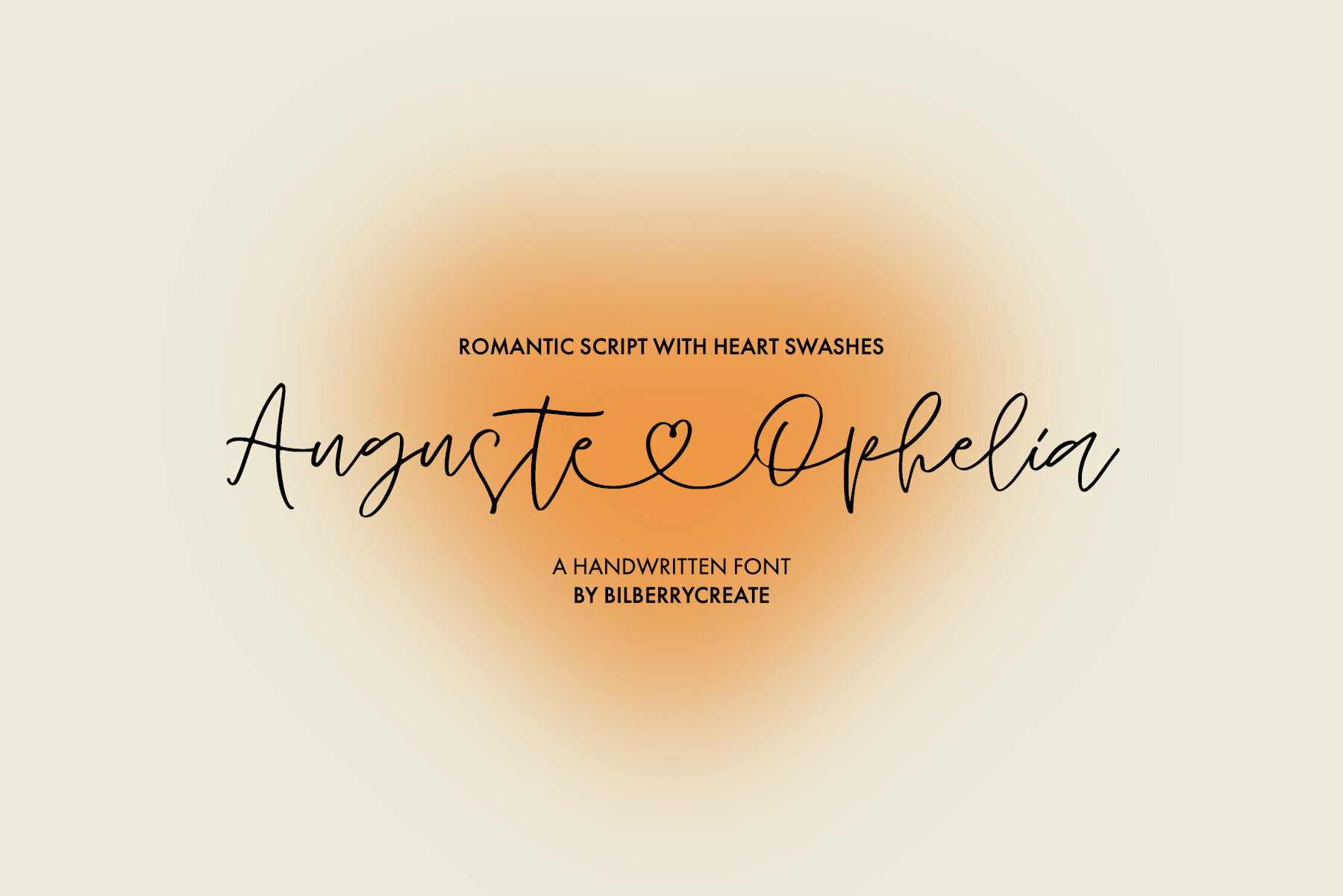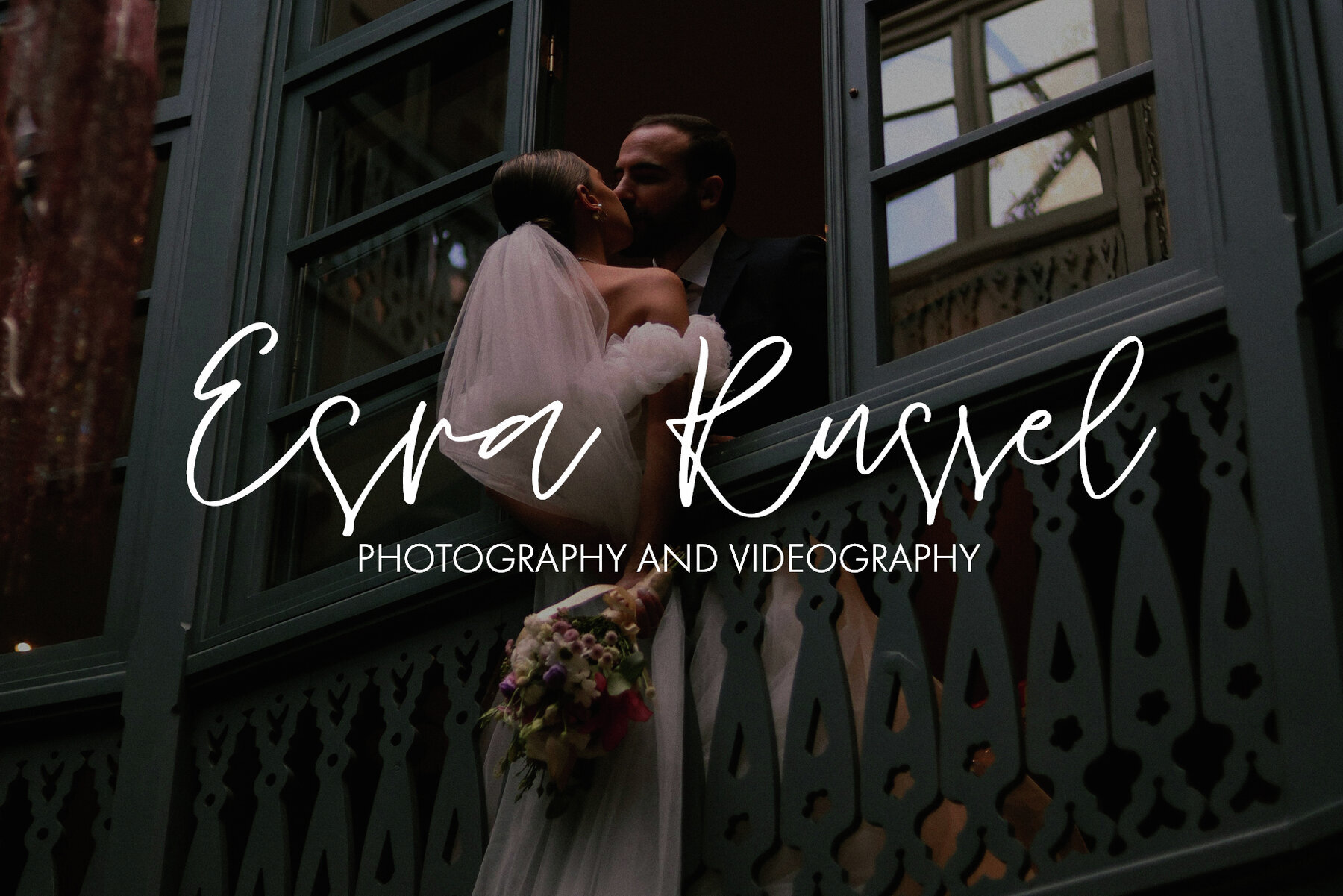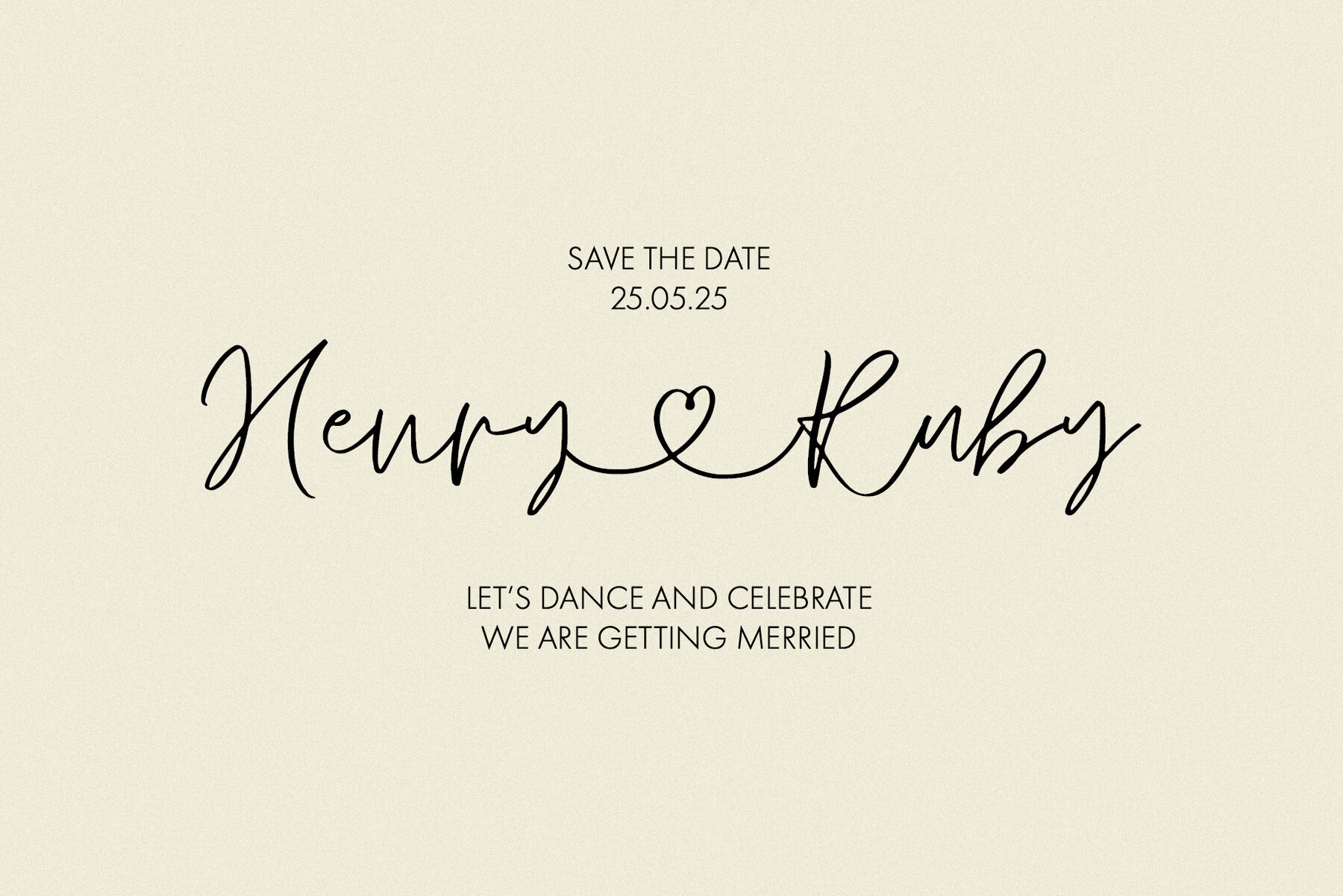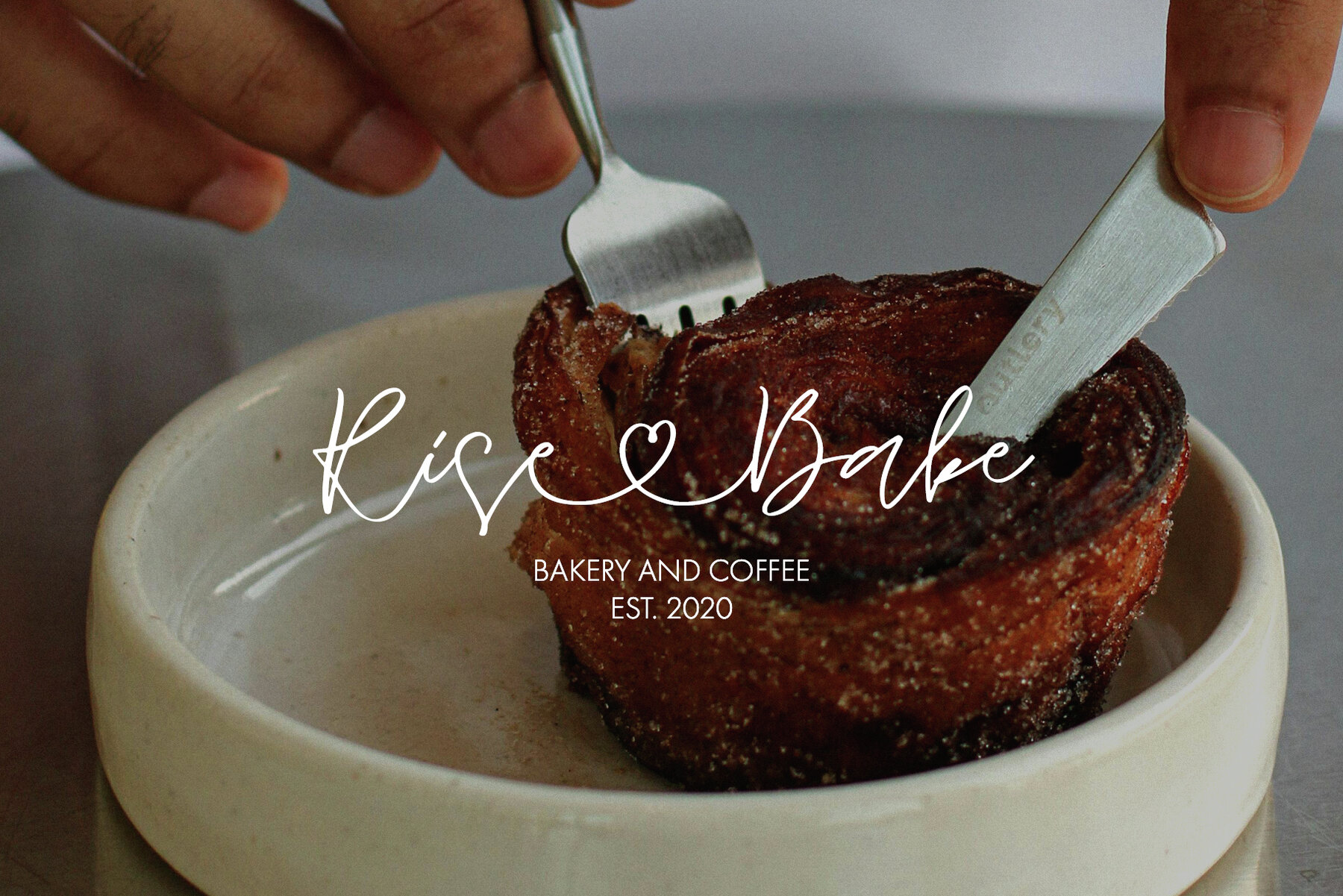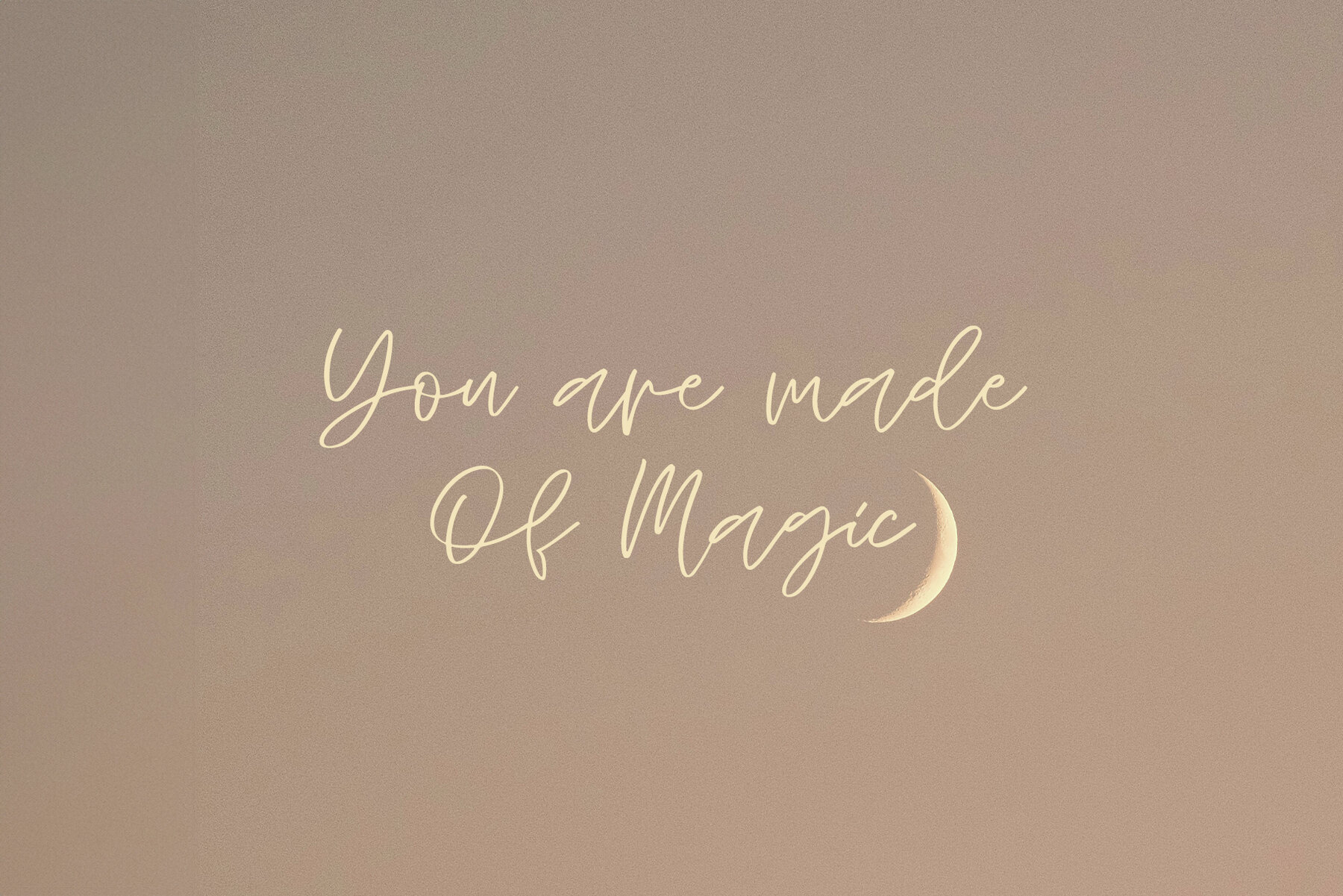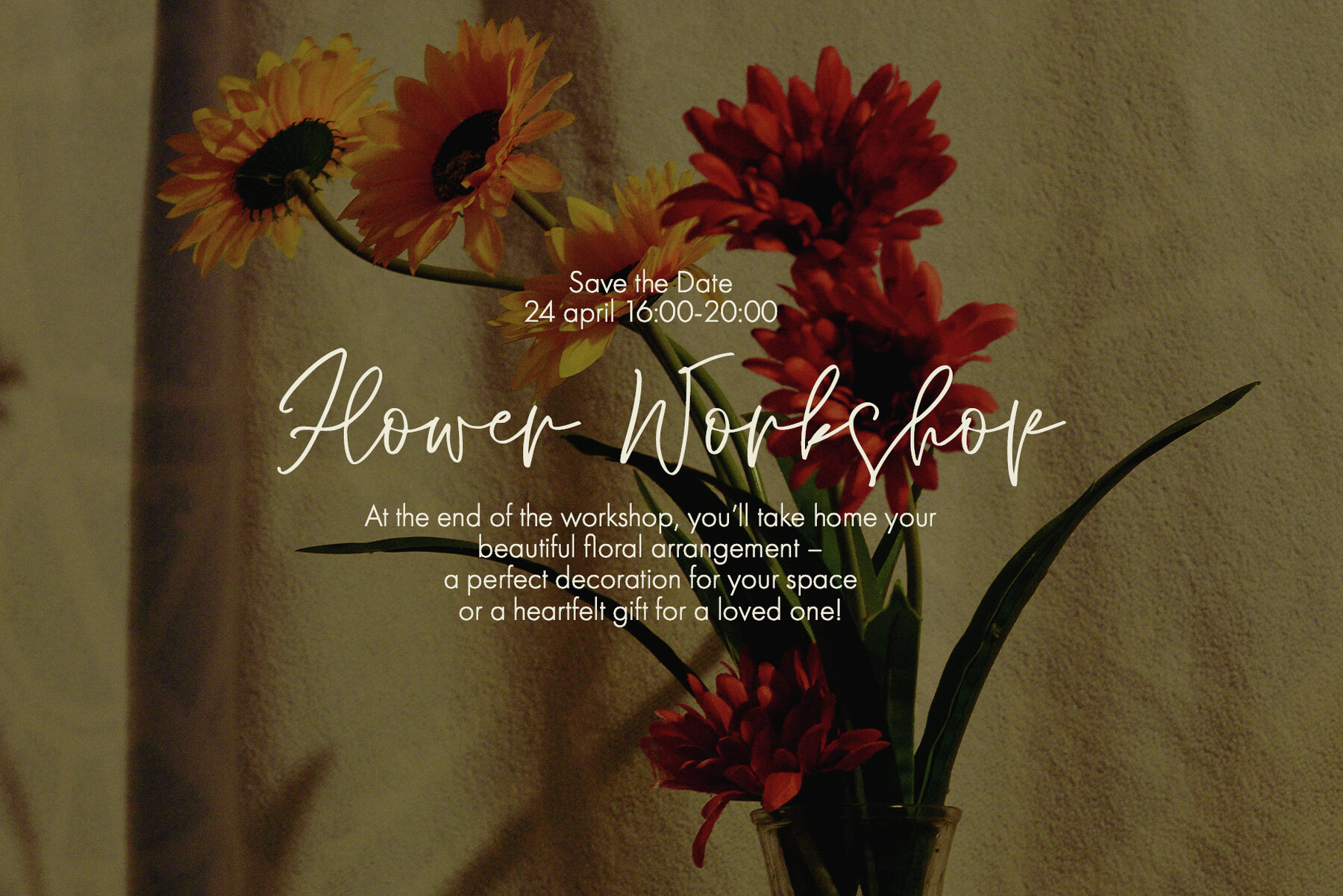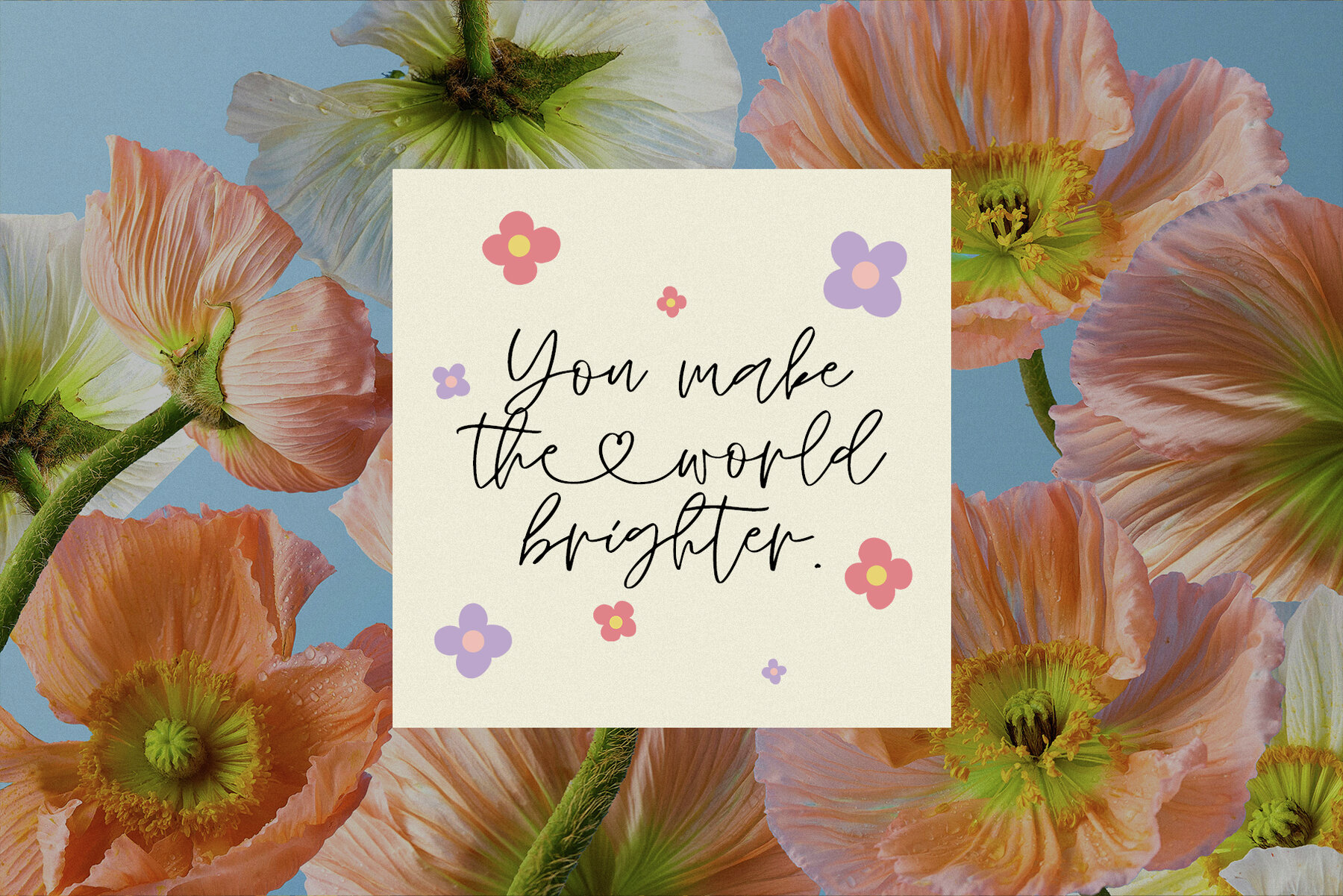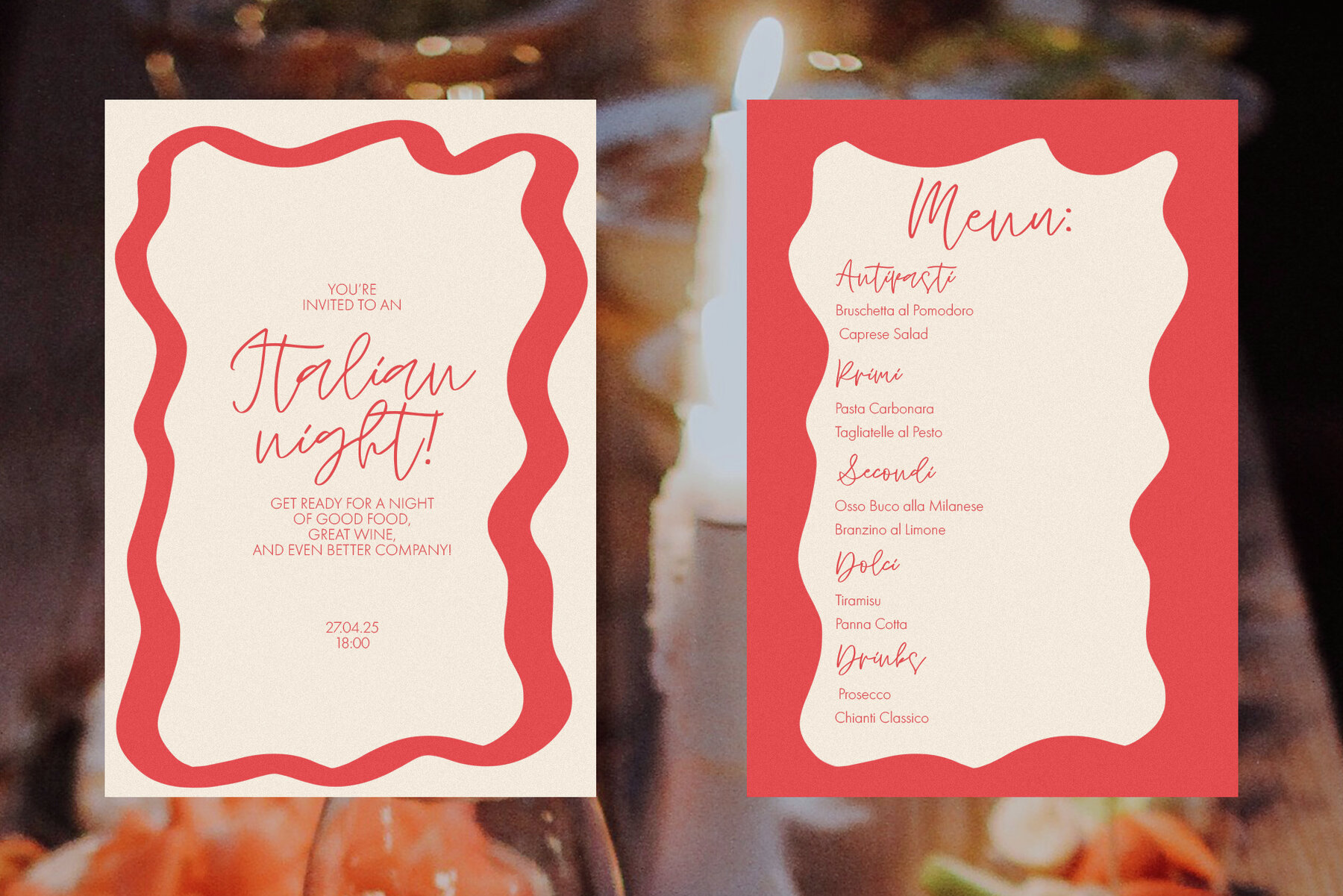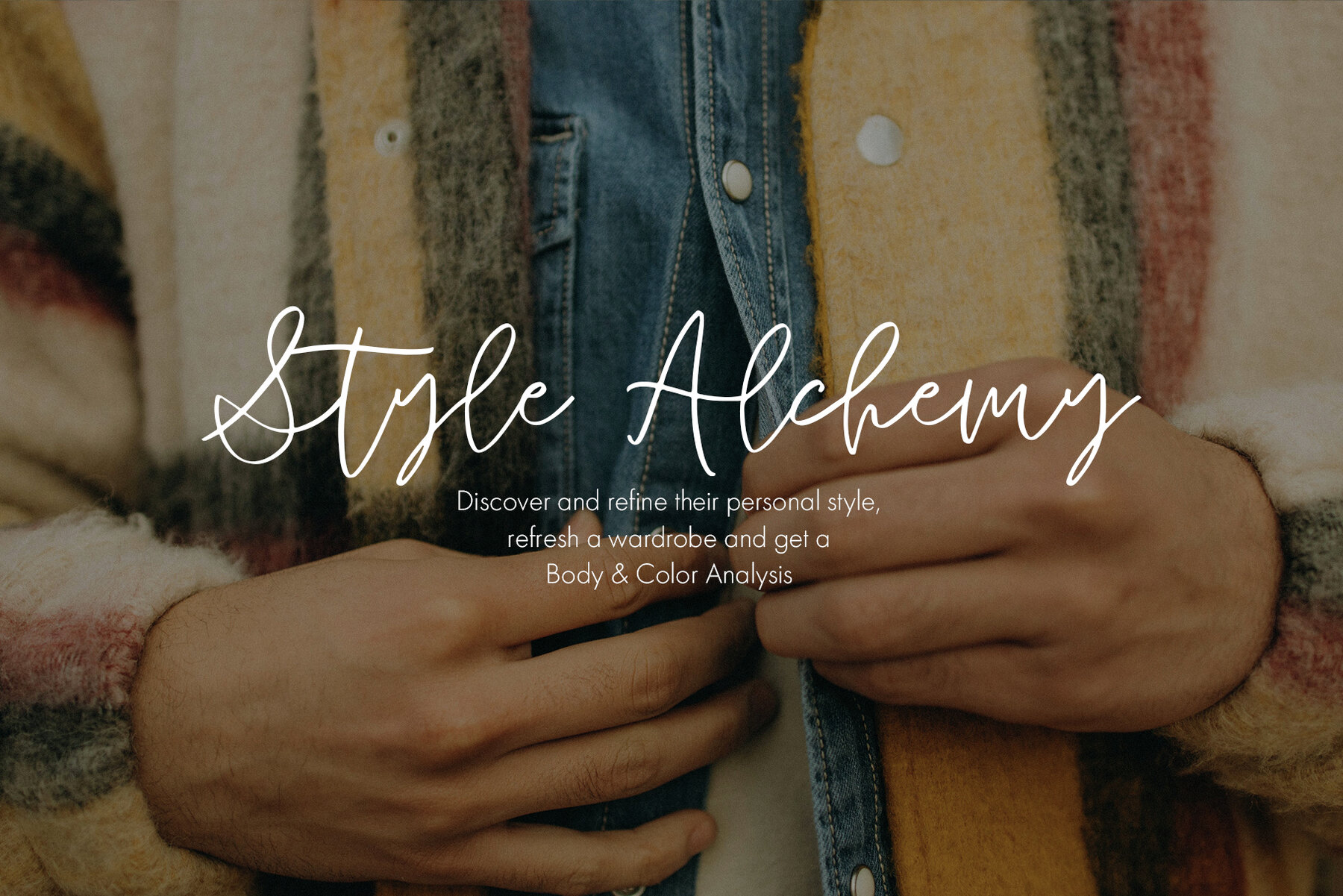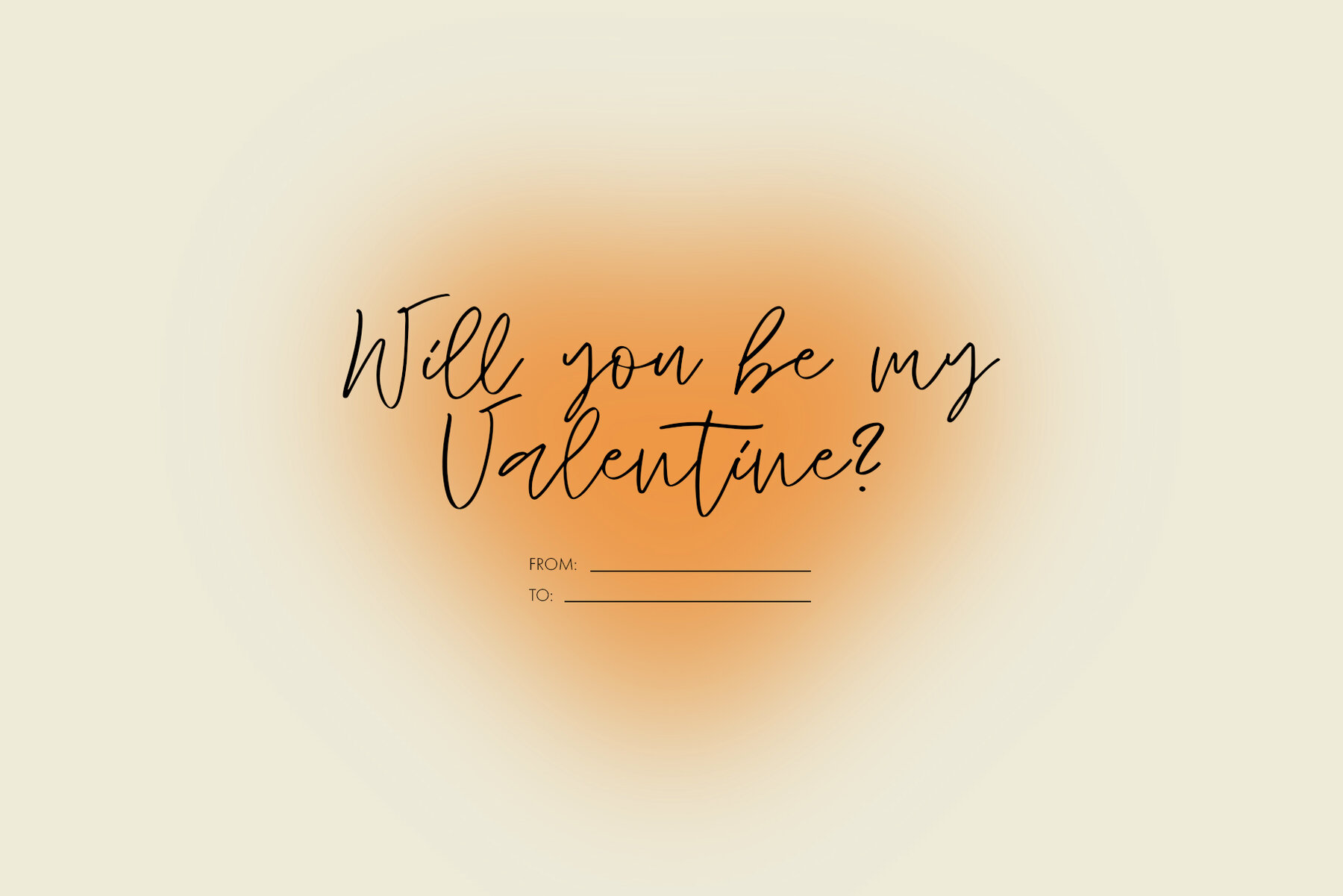
Auguste and Ophelia Font
This elegant handwritten script font exudes a flowing and dynamic charm, making it excellent for projects seeking a personal touch. Ideal for use in signature designs, wedding invitations, and artistic branding projects, it adds a stylish and whimsical flair, perfect for capturing attention. What's in the package: